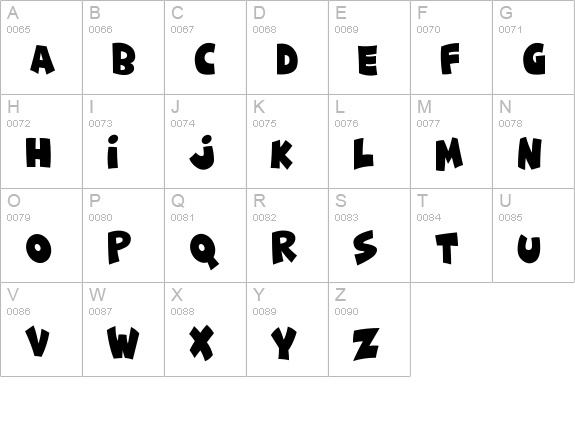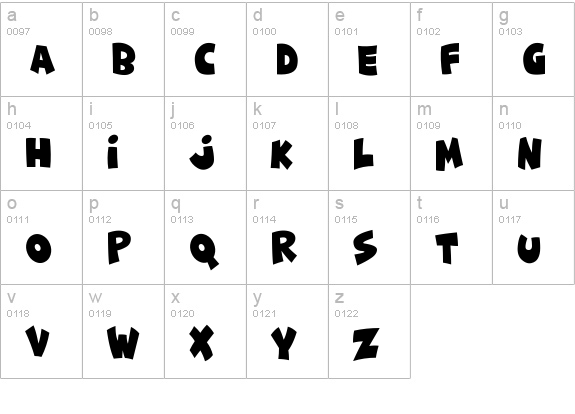
Funny & Cute Font Details
Funny & Cute is a donationware font in the Fancy > Comic category, designed by Darrell Flood. It has been downloaded 152 times and is available for Windows, Mac and Linux.
Introducing the Funny & Cute font, a delightful and charming typeface that is sure to bring a smile to your designs! This playful font is perfect for adding a touch of whimsy to any project, whether it's a greeting card, poster, or social media graphic. With its quirky and lovable characters, Funny & Cute is sure to capture the hearts of your audience.